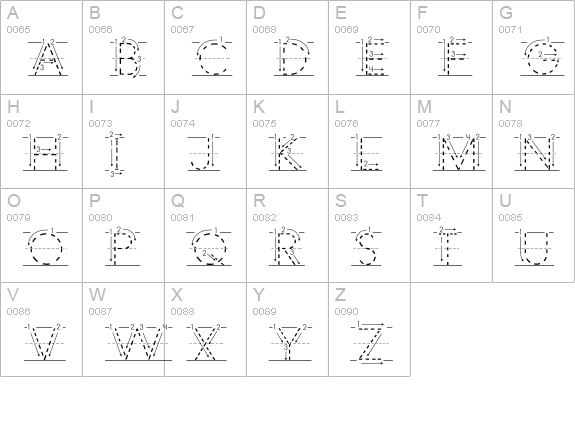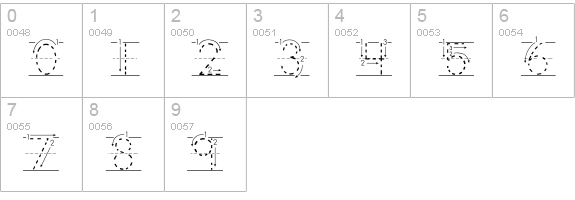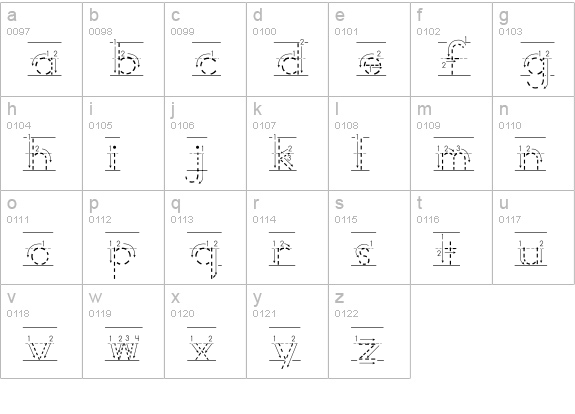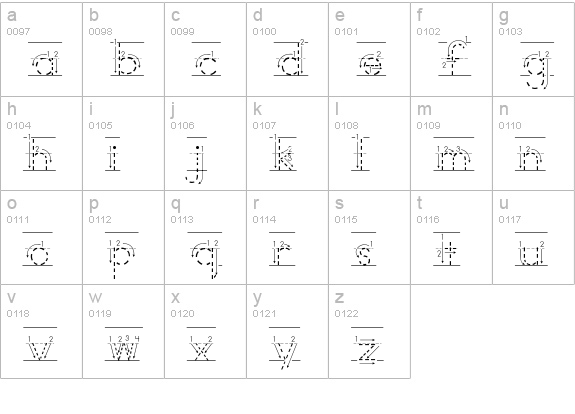
AbcPrintArrowDotted Font Details
AbcPrintArrowDotted font is a charming and whimsical typeface featuring dotted arrows that add a playful touch to any project. This font is perfect for creating eye-catching designs, invitations, posters, and more. With its unique style and creative flair, AbcPrintArrowDotted is sure to make your creations stand out from the crowd. Best of all, this font is available for free download at FontsMarket.com, allowing you to easily add a touch of fun to your designs without breaking the bank. Don't miss out on this delightful and versatile font that is sure to inspire your creativity!